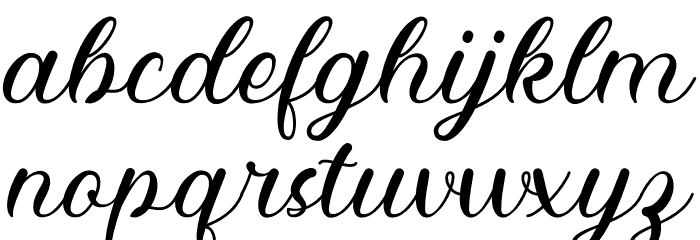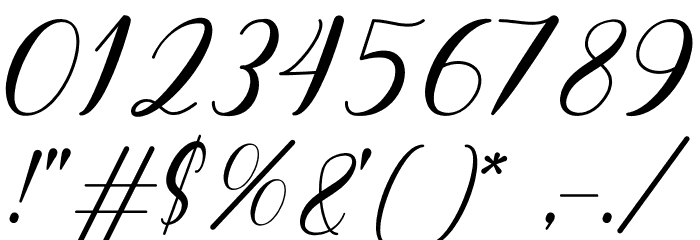
Ezkialova Font
This elegant script font features a flowing, cursive style with smooth, connected strokes that mimic the fluidity of handwriting. The uppercase letters are slightly more ornate, with graceful loops and swashes that add a touch of sophistication. The lowercase letters maintain a consistent rhythm, enhancing readability while preserving the font's decorative nature. Numbers and special characters are designed to match the overall aesthetic, ensuring a cohesive appearance across all text. The font's design is well-suited for projects that require a personal, artistic touch.
A graceful script font with flowing, connected strokes and elegant swashes.
- Font: Ezkialova
- Proposed Projects: Ideal for wedding invitations, greeting cards, branding, and elegant packaging.
- Category: Script
- Overall Style: Elegant
- Use Case: Logos, Invitations, Decorative text